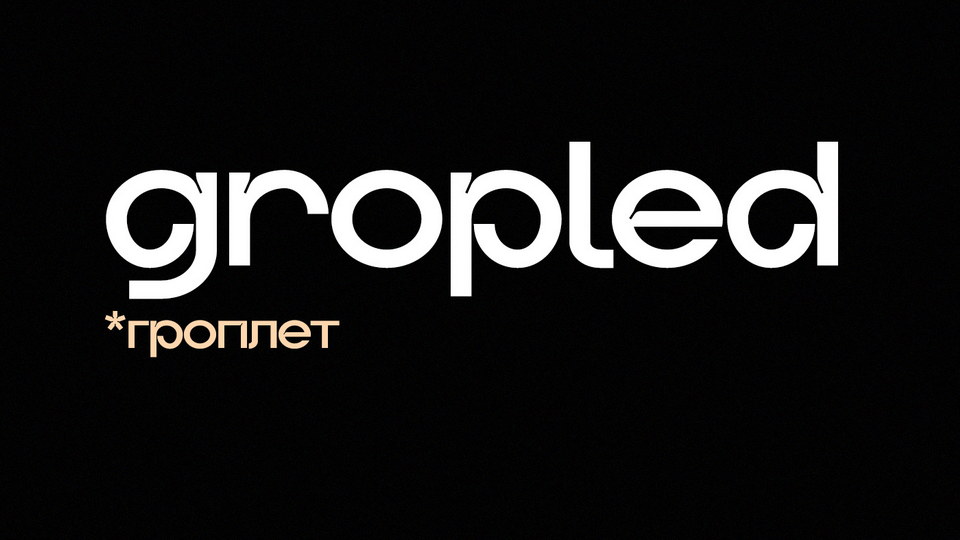
Download Gropled font, a contemporary sans serif typeface with inktraps and open curves. Gropled is perfect for graphic design and any display use.
Designer: Daniyar Shape